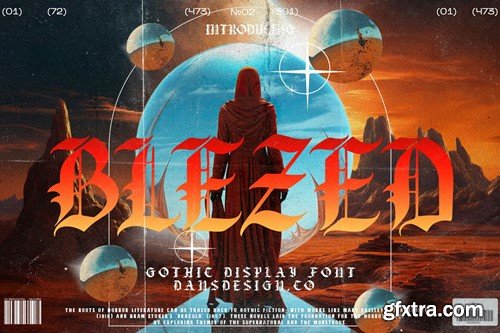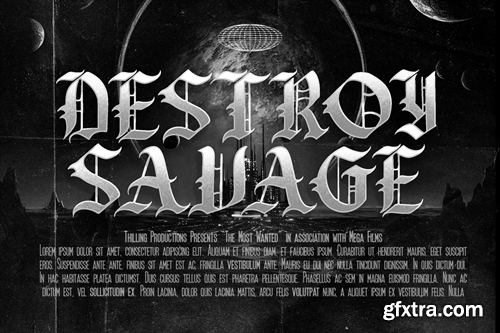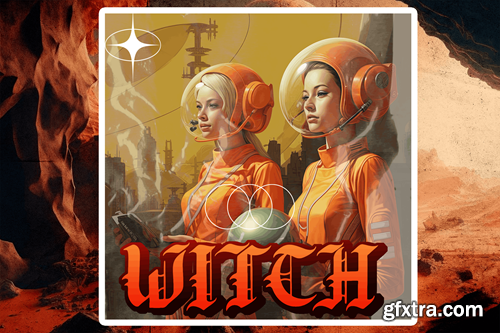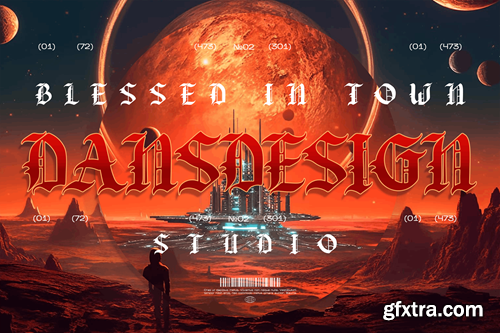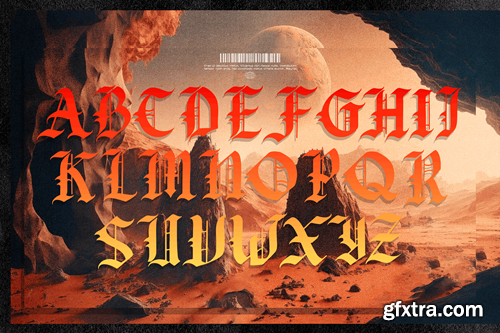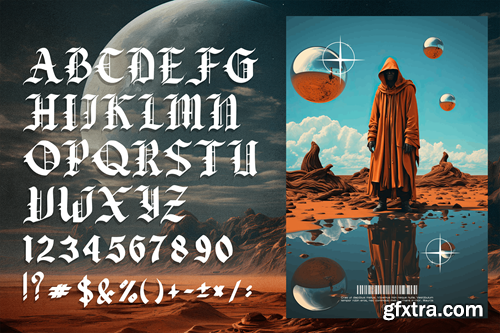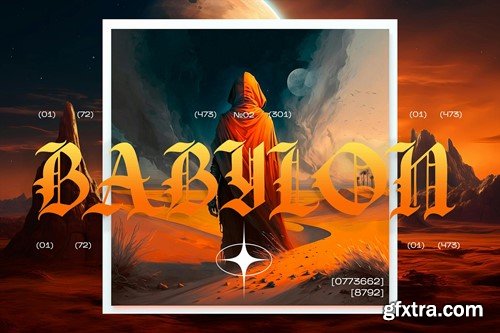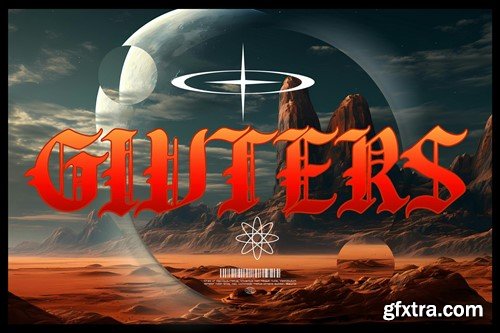
BLEZED 黑体哥特式展示字体 PZ2NKX6
BLEZED Blackletter Gothic Display Font
BLEZED Blackletters Gothic Display Font BLEZED Blackletter Gothic Display Font a distinct, highly detailed, and chic Blackletter font. It would make a great choice for exquisite retro-urban designs, tattoo business branding, logos, vintage designs, movie, poster, apparel, illustration, and more. BLEZED Blackletter Gothic Display Font (OTF/TTF) BLEZED Blackletter Gothic Display Font (WEB TT/PS) Featured : Accents (Multilingual characters) PUA encoded Numerals and Punctuation (OpenType Standard) Thanks for downloading